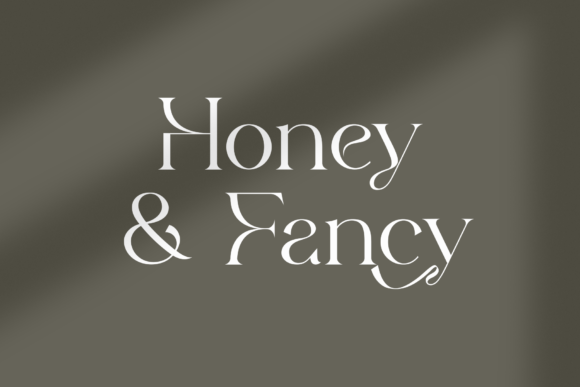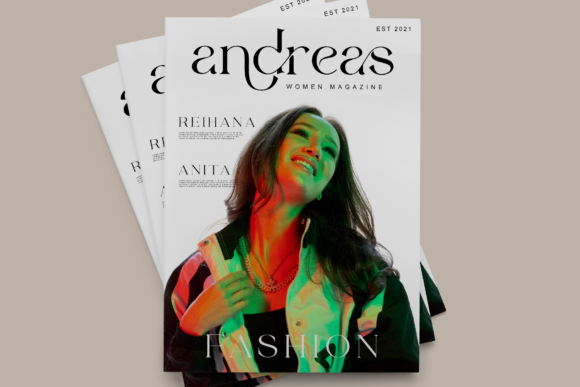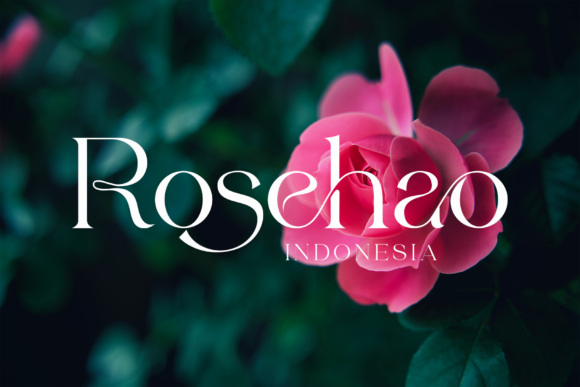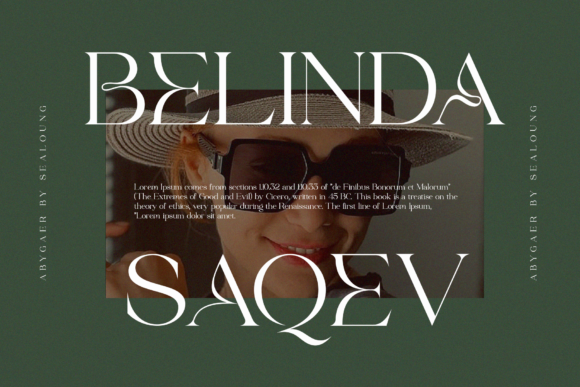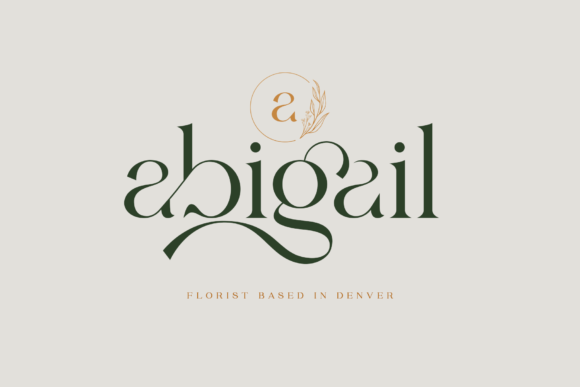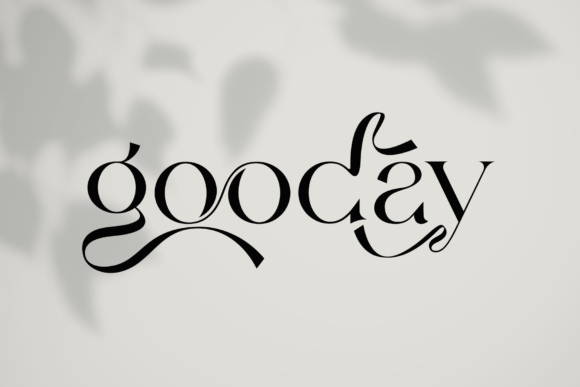
The Designer’s Delight: Unpacking the Elegance of Abygaer Font
I’ll never forget the time I was working on a luxury fashion brand project, and my client requested a font that exuded elegance and sophistication. I scoured the internet, tried out countless fonts, but nothing seemed to fit the bill. That was until I stumbled upon Abygaer Font. ✨ This wavy, chic, and luxurious serif font has been a game-changer for me, and I’m excited to share my experience with you.
A Honest Review: The Good and the Great
Abygaer Font has won me over with its impressive features. Here’s what I love:
• ✨ Smooth curves: Abygaer’s fluid lines make it perfect for fashion branding or editorial designs.
• ✅ PUA encoded: Easy access to amazing glyphs and ligatures, making it a breeze to add a touch of luxury to your designs.
• ✅ OpenType features: Unlock stylistic alternates, swashes, and more to give your text a unique twist.
While Abygaer is an excellent font, it’s not without its quirks:
• ⚠️ Glyph overload: With so many glyphs and ligatures available, it can be overwhelming to navigate. Take some time to explore the font’s capabilities.
• 🤔 Pairing challenges: Abygaer’s unique style might require some experimentation to find the perfect font pairing.
Exploring Alternatives: Similar Fonts to Abygaer
If you love Abygaer’s luxurious vibe, you might also enjoy:
• Playfair Display: A elegant, refined serif font perfect for high-end branding and editorial designs.
• Lust Script: A beautiful, handwritten script font with a luxurious feel, ideal for fashion and beauty brands.
• Adorn: A sophisticated, modern serif font with a range of OpenType features, suitable for editorial and branding projects.
• Didot: A classic, luxurious serif font with a timeless feel, often used in high-end fashion and editorial designs.
The Story Behind Abygaer: Designer Inspiration
Abygaer was crafted with the goal of creating a font that embodies luxury and sophistication. Inspired by the smooth lines of high-end fashion and the elegance of editorial design, Abygaer’s creator aimed to produce a font that’s both versatile and refined. 💫 While the actual story behind Abygaer’s creation might be shrouded in mystery, its design is undoubtedly a testament to the power of typography in elevating a brand’s visual identity.
Q: What is PUA encoding, and how does it benefit Abygaer users?
A: PUA (Private Use Area) encoding allows font creators to include additional glyphs and characters that aren’t part of the standard Unicode range. For Abygaer users, this means easy access to a wide range of glyphs, ligatures, and stylistic alternates.
Q: Is Abygaer suitable for body text, or is it better suited for headings?
A: While Abygaer can be used for body text, its luxurious and elegant design makes it particularly well-suited for headings, titles, and other display text.